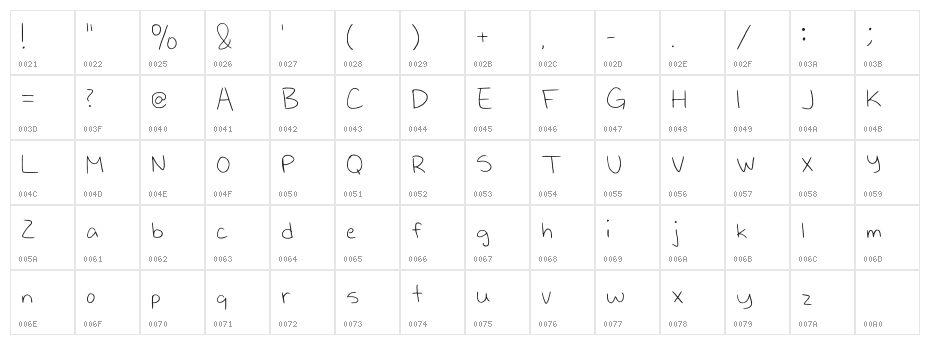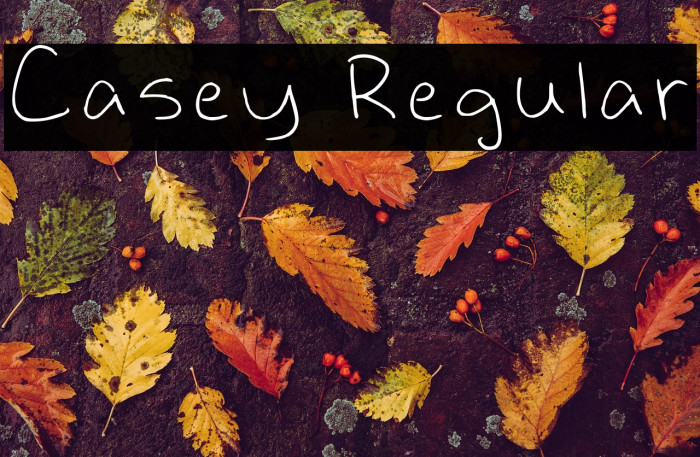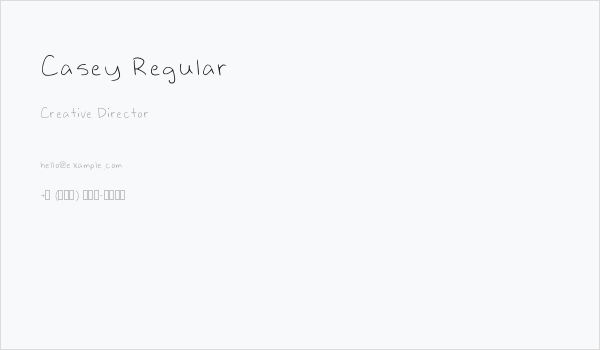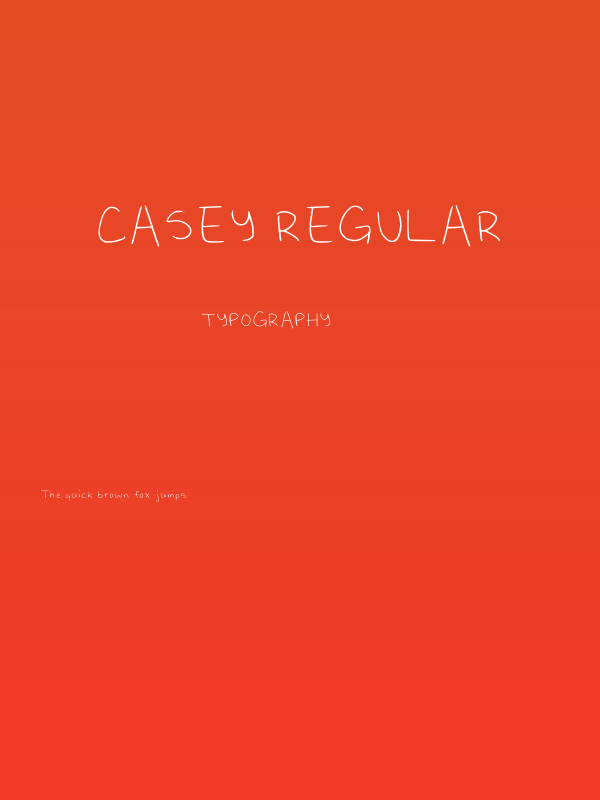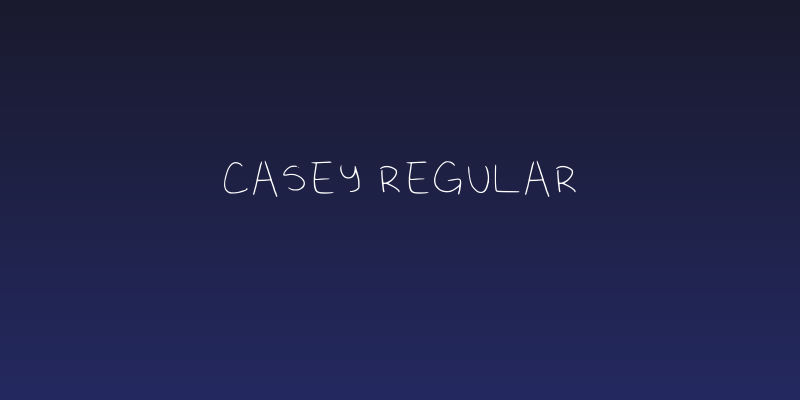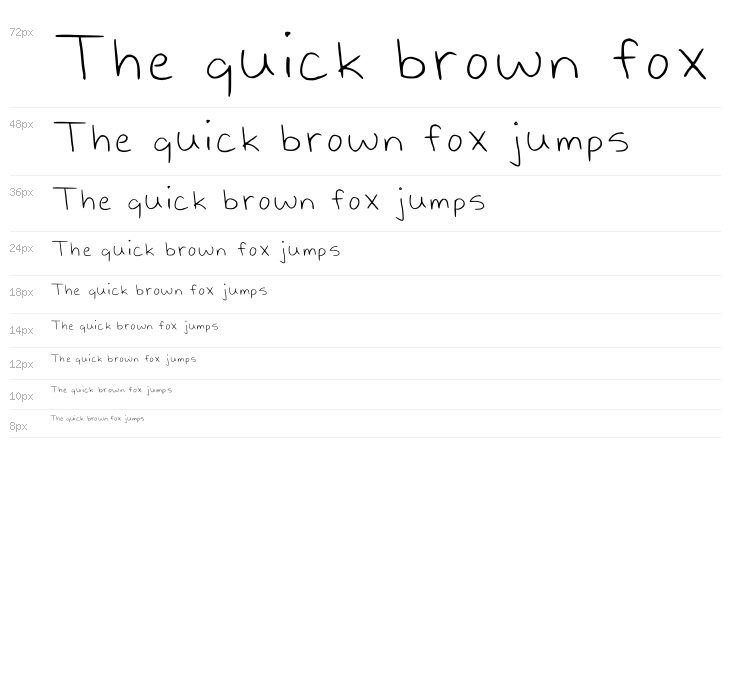
Casey Regular Font
| Stile generale | Casual, Playful, Informal |
| Caso d'uso | Notes, Invitations, Educational Materials, Branding |
| Progetti proposti | Children’s books, greeting cards, informal notes, educational materials, friendly branding. |